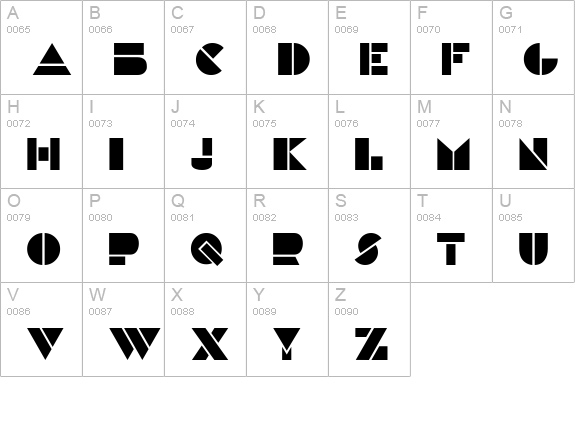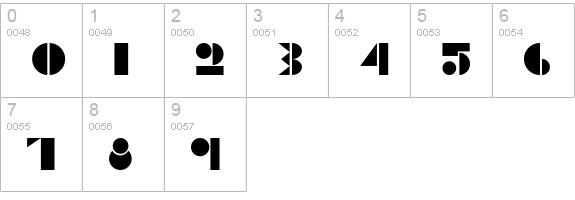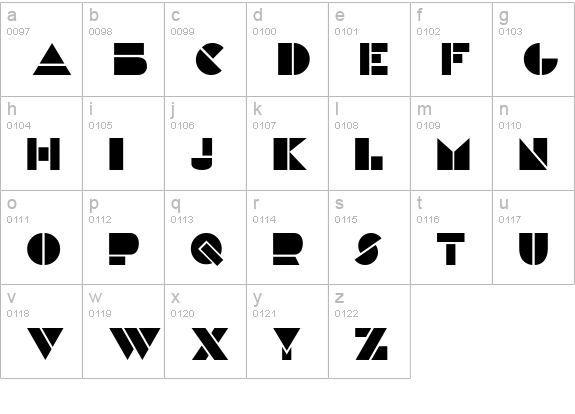
Constructivist Line Font Details
Constructivist Line font is a modern and stylish typeface that embodies the essence of constructivism through its clean lines and bold design. This font is perfect for adding a contemporary touch to your projects, whether it be for graphic design, branding, or advertising. The geometric shapes and sharp angles of Constructivist Line font make it stand out and command attention. What's even better is that Constructivist Line font is available for free download at FontsMarket.com. This means you can easily access this unique and eye-catching font to enhance your creative work without any cost. So go ahead and elevate your designs with Constructivist Line font, and let your creativity shine!